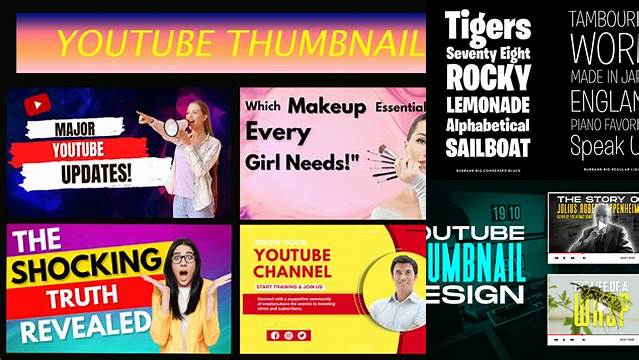
YouTube Thumbnail Fonts: The Ultimate Guide To Eye-Catching Designs
YouTube Fonts for Thumbnails: Captivating Your Audience
Hey guys! Let's dive into the exciting world of YouTube thumbnails and how the right YouTube fonts can make your videos pop! We all know that a killer thumbnail is the first impression, the gatekeeper to those precious views. And what's a crucial element of a fantastic thumbnail? You guessed it: the font! Choosing the perfect font can be the difference between a click and a scroll-by. I'm here to guide you through the best font choices, design tips, and everything you need to know to make your thumbnails irresistible. Get ready to learn how to use YouTube fonts to create thumbnails that scream 'Watch Me!'
1. Understanding the Power of YouTube Fonts in Thumbnails
Okay, let's be real. You spend hours creating amazing video content, right? But if your thumbnail game is weak, you might as well be shouting into the void. Your thumbnail is the first thing potential viewers see, and it's got a split second to grab their attention amidst a sea of other videos. YouTube fonts play a massive role in this. They convey your video's topic, tone, and personality. A bold, playful font might be perfect for a gaming video, while a sleek, modern font suits a tech review. The right font can make your thumbnail clear, easy to read, and visually appealing, increasing the chances of that all-important click. Think of it as a mini-billboard for your video – you want to make sure it's eye-catching and accurately represents what your video is all about.
Consider these points: First impressions really matter. A poorly designed thumbnail with a confusing font can immediately turn viewers away. Your font choices contribute to your brand identity. Consistency in your font use across all your thumbnails can help viewers instantly recognize your videos. Readability is key. If the font is too small, complex, or clashes with the background, your message won't get across.
Your thumbnail is a crucial piece of marketing real estate. Don't underestimate the value of a well-chosen YouTube font. It's an investment in your video's success, helping you attract viewers, increase engagement, and ultimately grow your channel.
2. Top YouTube Fonts for Maximum Click-Through Rates
Alright, let's get into the good stuff! Choosing the right YouTube fonts is like picking the perfect outfit – it depends on the occasion and your personal style. However, some fonts consistently perform well on thumbnails, grabbing viewers' attention and boosting those click-through rates. Here are some of the top contenders, along with why they work:
- Impact: This is a classic for a reason. Impact is bold, chunky, and instantly readable, even at a small size. It's ideal for attention-grabbing headlines and short, punchy text. Use it sparingly, as its strong presence can be overwhelming if overused. Think of it as your heavy hitter for important keywords.
- Arial Black: Similar to Impact in its boldness, Arial Black offers a slightly cleaner look. It's still highly legible and works well for a variety of topics. It's a safe and reliable choice for most thumbnails, especially if you're unsure what font to pick.
- Bebas Neue: This sans-serif font is tall, condensed, and modern. It's perfect for conveying a sense of urgency or excitement. It's great for headlines and short calls to action. The clean lines make it easy to read and visually appealing.
- Montserrat: A versatile sans-serif font that offers a balance of style and readability. It comes in a range of weights, allowing for flexibility in your design. From thin to bold, you can find a Montserrat style to suit any thumbnail. It's an excellent option if you want a more modern and polished look.
- Roboto: Google's signature font, Roboto is clean, friendly, and highly readable. It works well in various sizes and styles, making it a go-to choice for many creators. It's a solid all-rounder that looks great in most thumbnail designs.
These fonts are popular for a reason: they are legible, bold, and communicate the video's essence. Consider your video's tone and theme when making your choice. Experiment with different font combinations to find what works best for your unique brand and style.
3. Font Pairings That Pop: Combining YouTube Fonts Effectively
Choosing the right YouTube fonts isn't just about selecting a single font; it's also about creating effective pairings. Just like choosing the right outfit, combining different fonts can elevate your thumbnail from good to great. The key is to find fonts that complement each other, creating visual harmony and making your message clear. Here’s how to master font pairings.
- Contrast is Your Friend: Don't be afraid to mix and match different font styles. Pair a bold, chunky font (like Impact) with a cleaner, more elegant font (like Montserrat) for a striking contrast. This helps to emphasize different parts of your message and draw the viewer's eye.
- Consider Font Families: Using different weights and styles within the same font family is an easy way to create a cohesive look. For instance, use a bold weight for your headline and a regular weight for a subtitle. This provides visual interest while maintaining consistency.
- Sans-Serif and Serif: A classic combination. Sans-serif fonts (like Arial or Roboto) are often used for headlines due to their readability, while serif fonts (like Times New Roman) can be used for supporting text. Make sure the pairing is legible.
- Layering: Layering elements can add depth and interest. Place text over your image in a way that doesn’t obscure essential elements. Experiment with drop shadows or outlines to make the text pop.
- Alignment: Make sure your text is aligned properly. Aligning your text with the elements in your image will provide a cleaner, more professional look. Centering or aligning to the edges works best.
- Call to Action (CTA): Use text to encourage viewers to click. Include phrases like